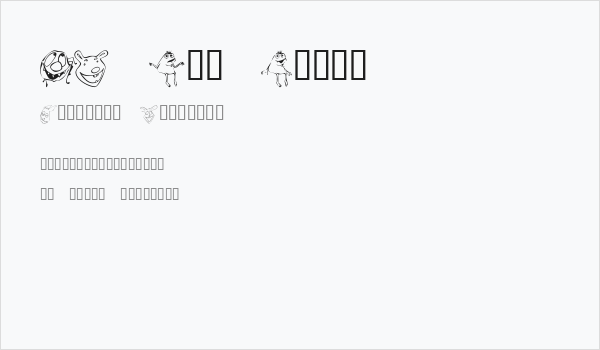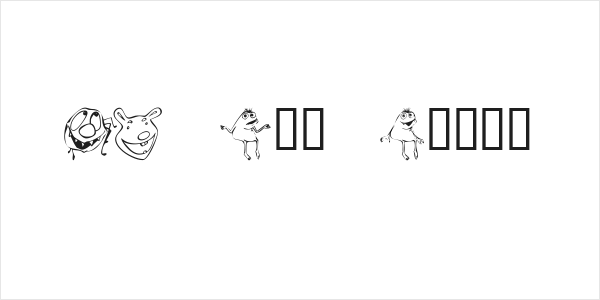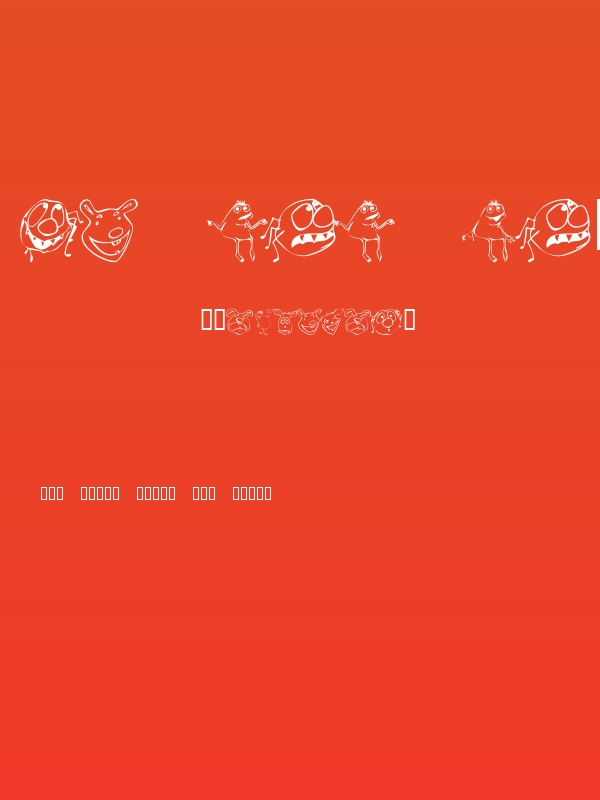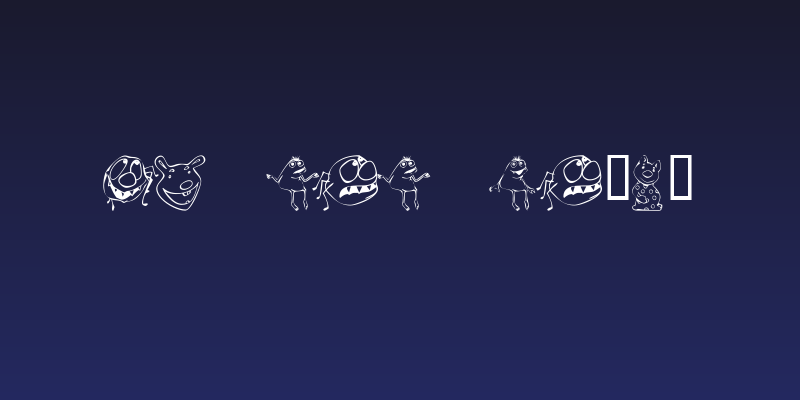
KR Lil Mites Font
KR Lil Mites Description
This font features a whimsical and playful design with characters that resemble cartoon-like creatures. Each letter is uniquely crafted with exaggerated expressions and quirky features, giving it a lively and animated appearance. The style is highly decorative, making it ideal for projects that require a fun and engaging visual element. The characters are bold and distinct, ensuring they stand out in any design. The font's creative and imaginative style makes it perfect for children's materials, party invitations, or any project that seeks to convey a sense of joy and playfulness.
Overall StylePlayful, Whimsical, Cartoon-like
Use CaseLogos, Posters, Children's materials
Proposed ProjectsIdeal for children's books, party invitations, playful branding, and creative posters.